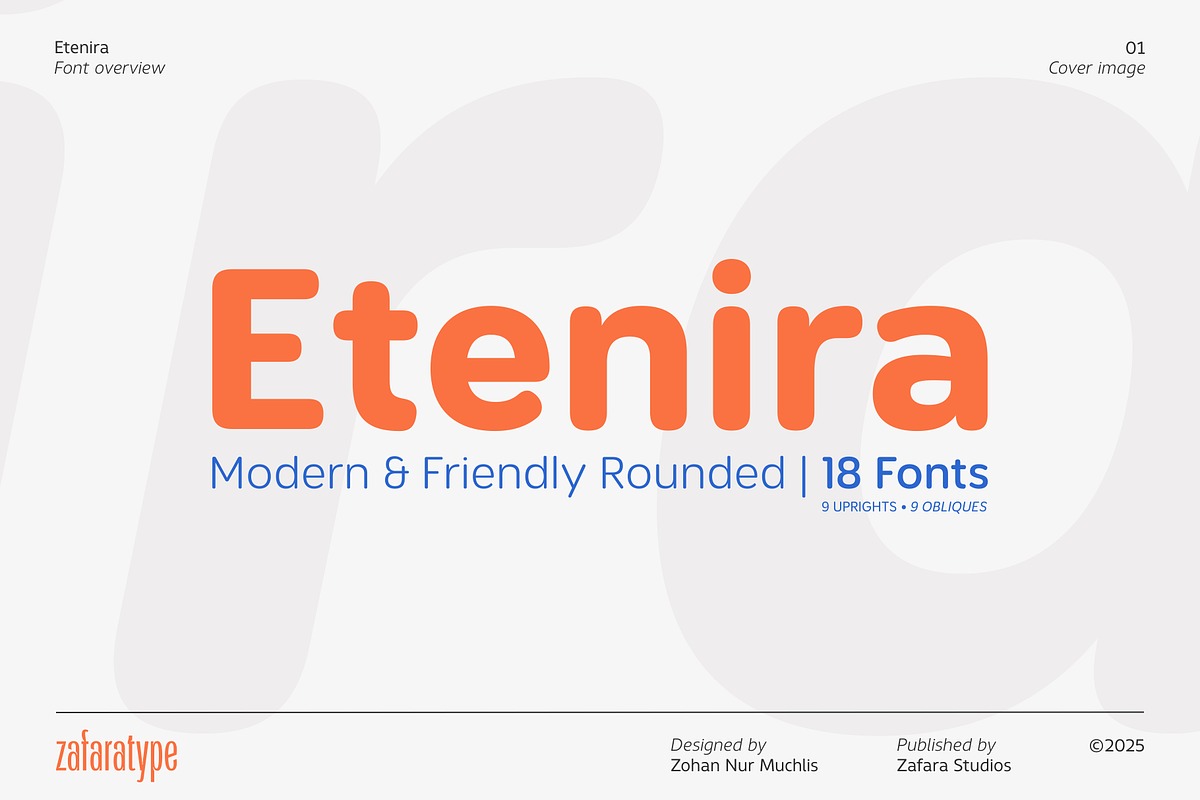
Etenira Font
Etenira Font is a versatile font designed to adapt beautifully across different design styles, offering dependable readability and balance. Etenira is a Modern & Friendly Rounded font family that blends soft curves with balanced proportions, bringing warmth and friendliness to any project. With its clean, contemporary style, it offers versatility for branding, packaging, editorial design, web interfaces, and beyond.